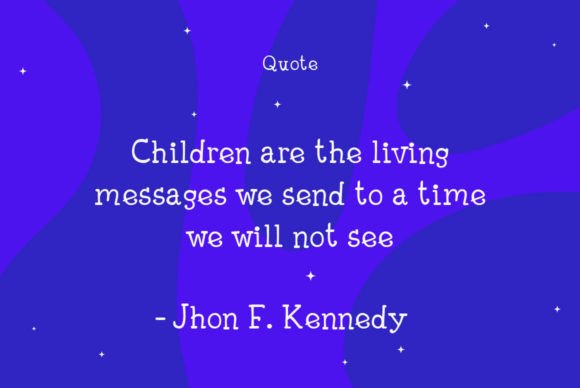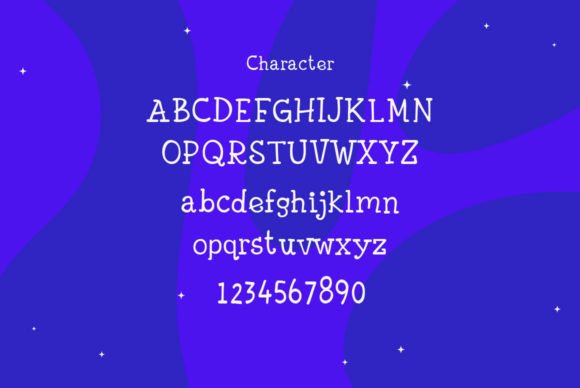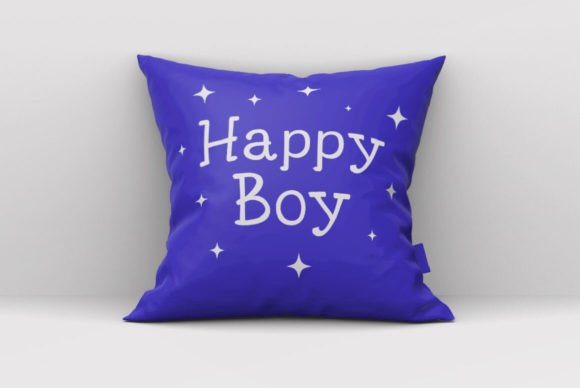
Introduction to Berkisah Font
β€˜Berkisah’ font is characterized by its fun-lined appearance, with letters in cute design.
The font’s handwritten style also adds a sense of warmth and approachability, making it a friendly and engaging choice for any project .
Key Features of Berkisah Font
Why Choose Berkisah Font?